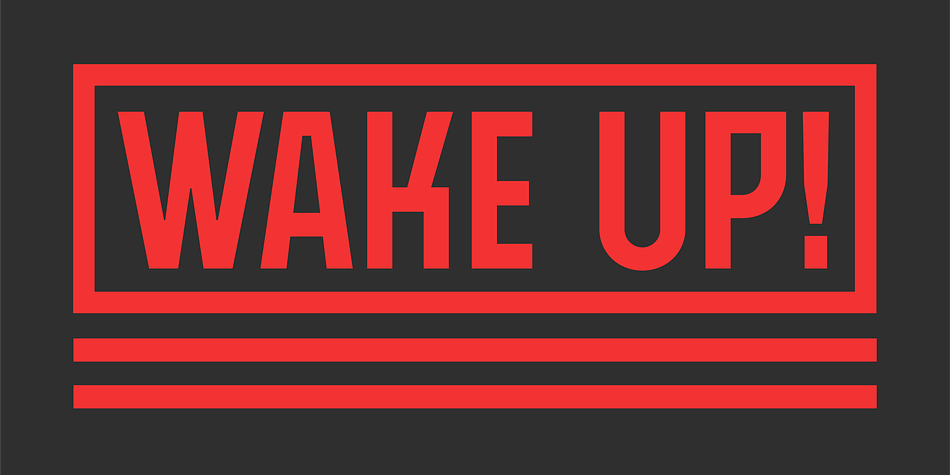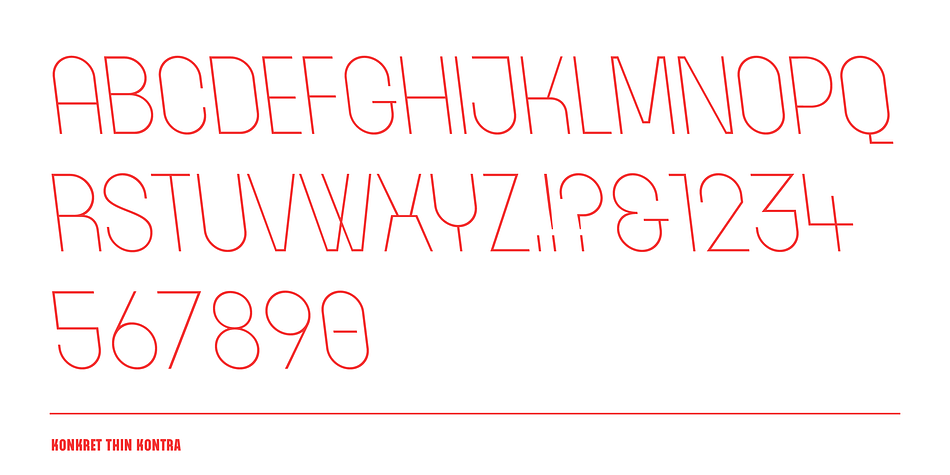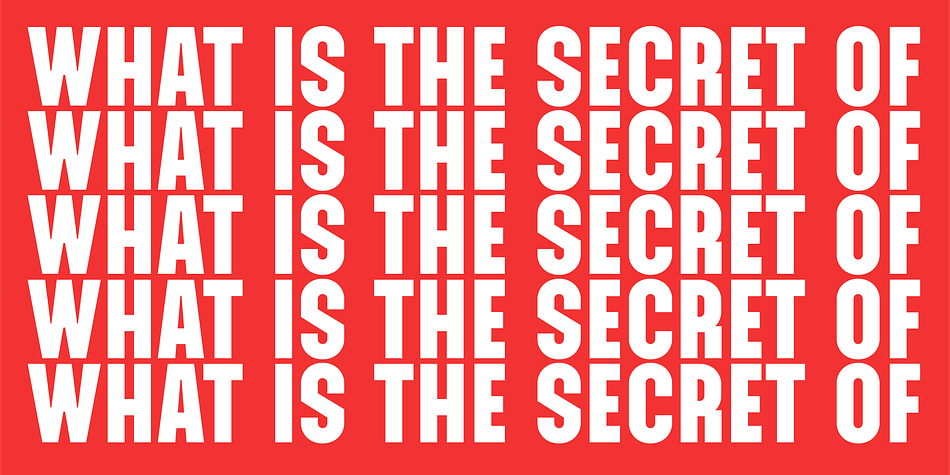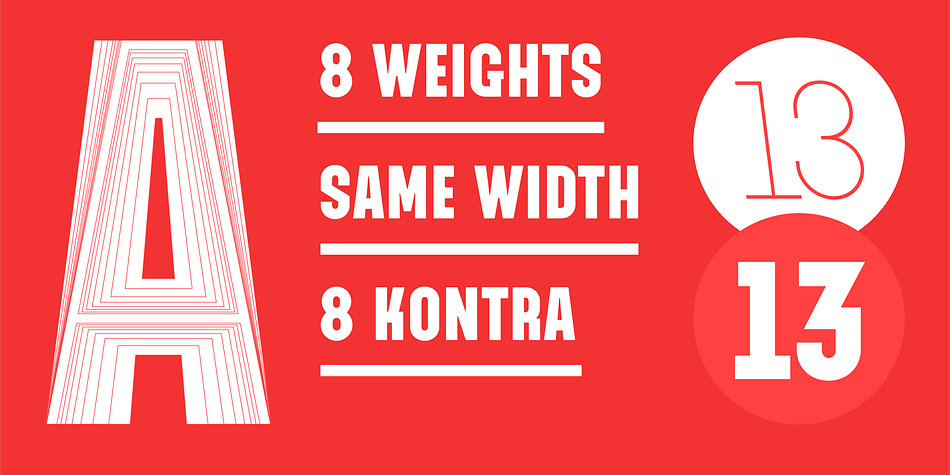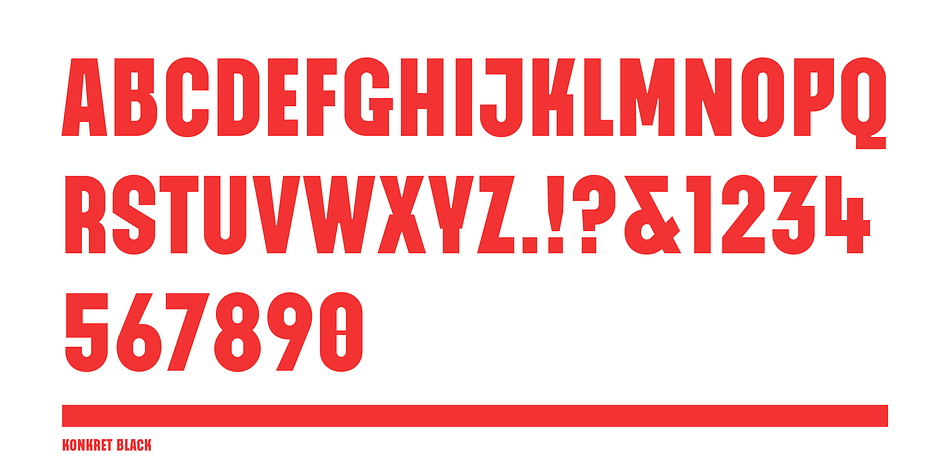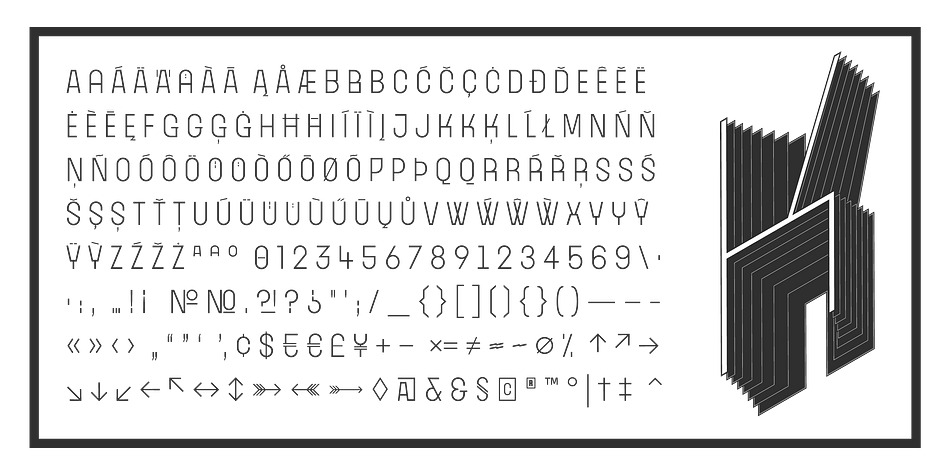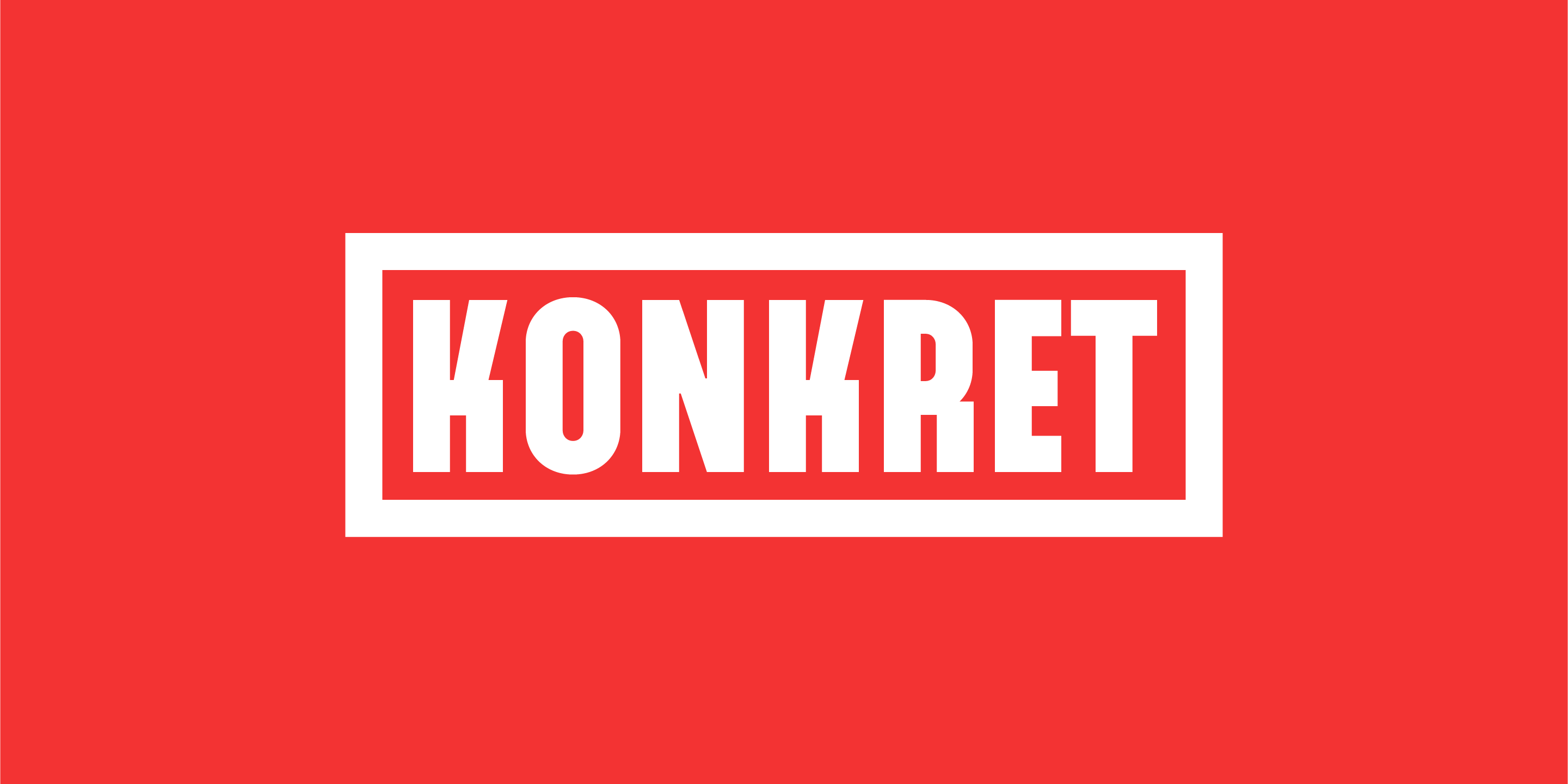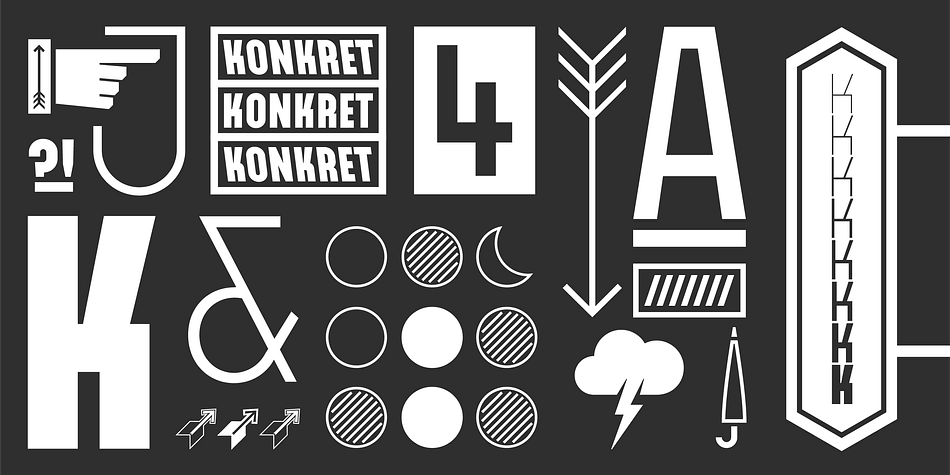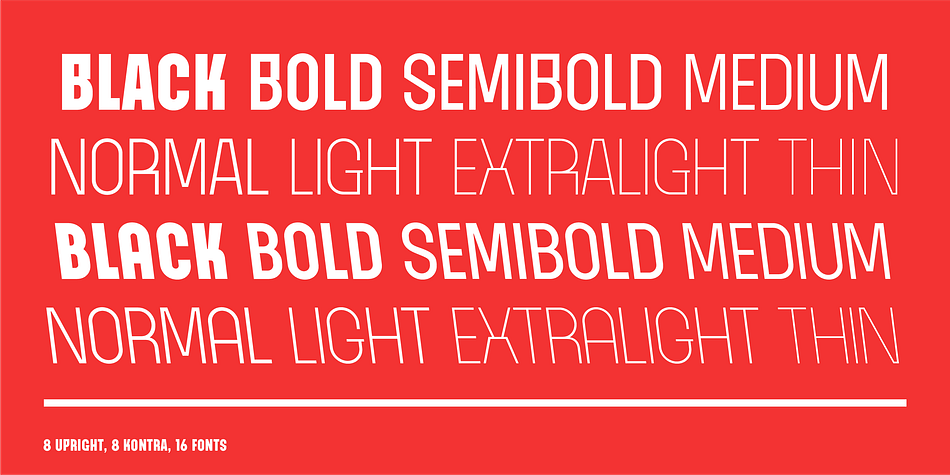
Designed by Stefan Huebsch and Daniela Spinelli, Konkret is a display sans font family. This typeface has sixteen styles and was published by Typocalypse.
Konkret, a bold new display typeface designed by Stefan Huebsch and Daniela Spinelli. With distinctively sharp-edged, unconventional letterforms as well as additional alternate forms, it’s predestined for large-scale applications.
Konkret is rough and defiant and doesn’t always follow the rules. Konkret is a geometric, uppercase typeface family designed for contemporary typography and comes in eight weights, plus kontra-italics.
As an uniwidth typeface, each letter occupies the same space in all weights.